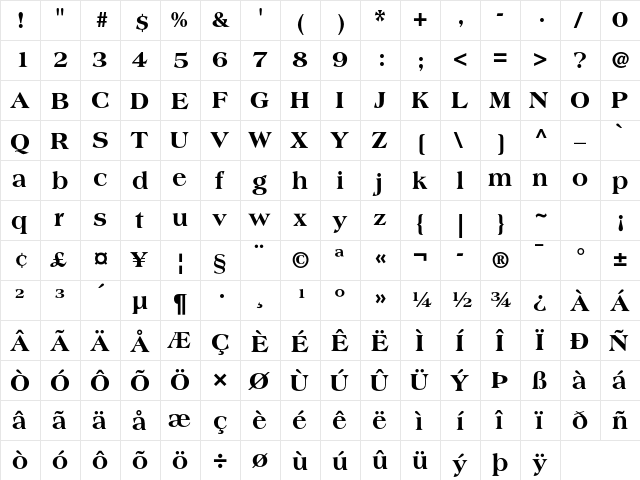
Americana Std Extra Bold
| Designer | Richard Isbell |
Design Context for Americana Std Typeface
Americana Std takes a measured approach to typography — its balanced proportions and neutral character make it a reliable workhorse for both digital and print work. Its bold stroke weight gives it real presence on the page.